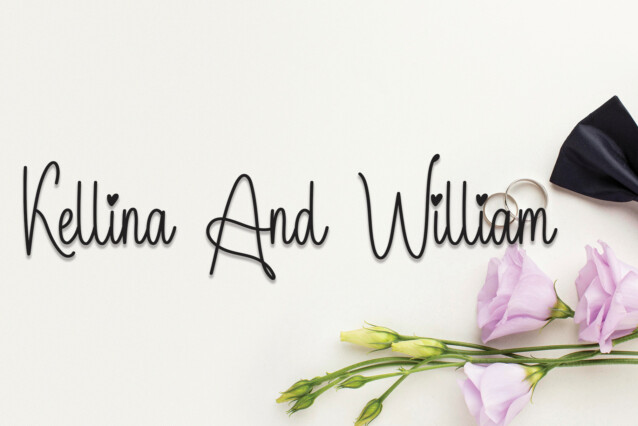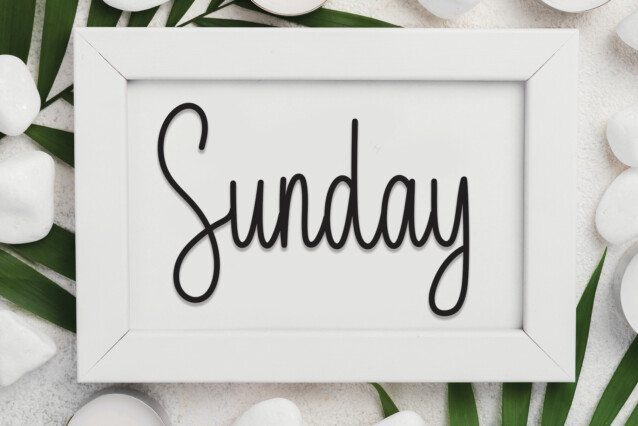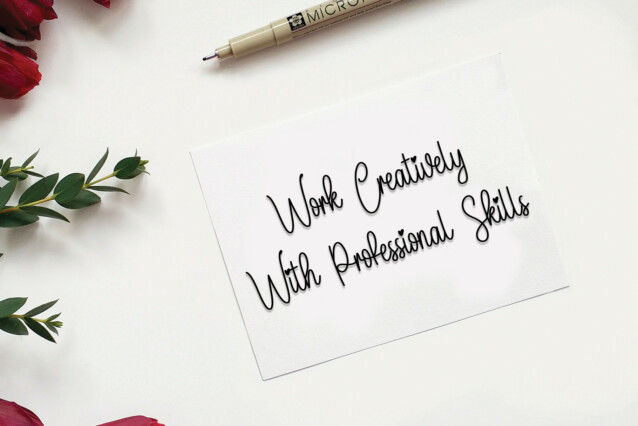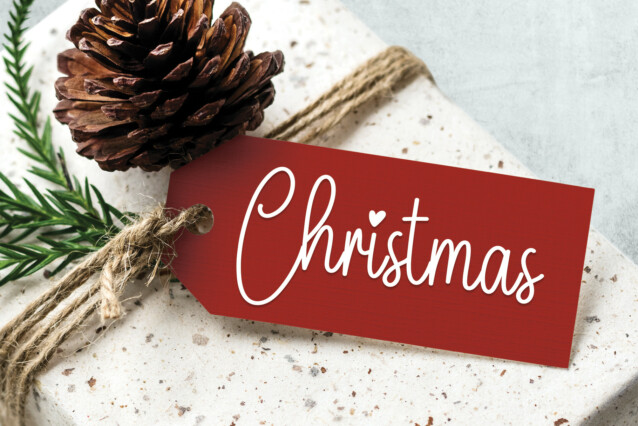
Wedding is Comming Handwritten Font
Wedding is Comming Handwritten Font is a lovely and timeless handwritten font. It is the best choice for creating eye-catching logos, branding, and quotes. Every letter has a unique and beautiful touch, which will make your design come alive!